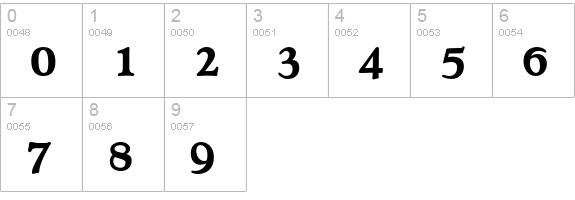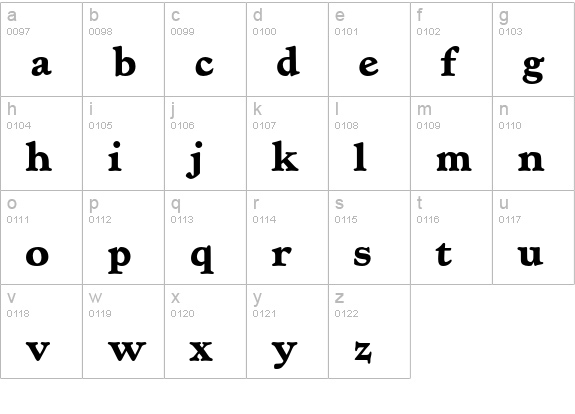
AT Hadriano Std Extra Bold Font Details
AT Hadriano Std Extra Bold is a strong, high-contrast variant in the AT typeface family \xE2\x80\x94 well suited to headlines, attention-grabbing titles, and strong calls-to-action.